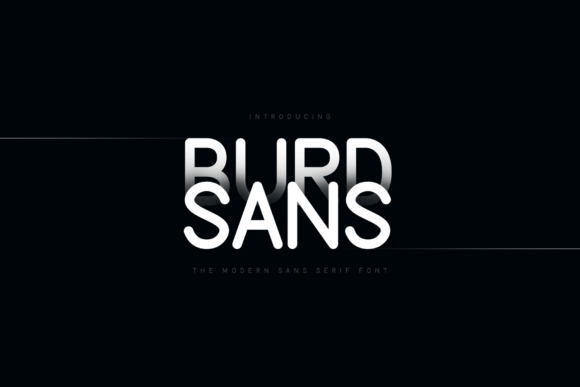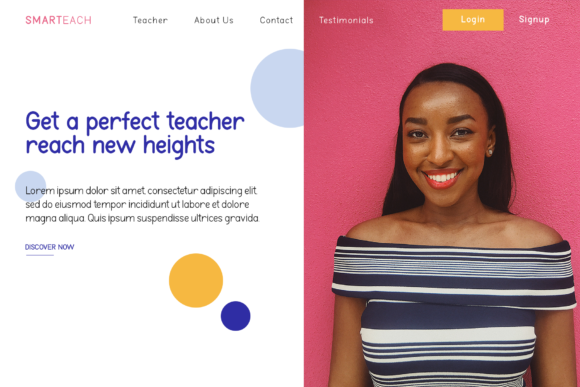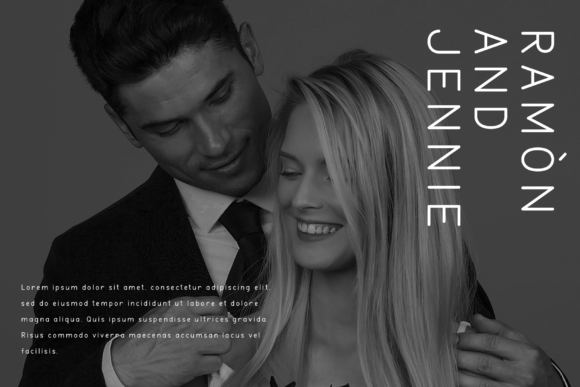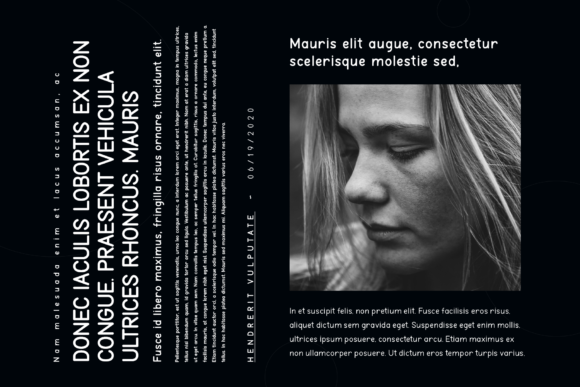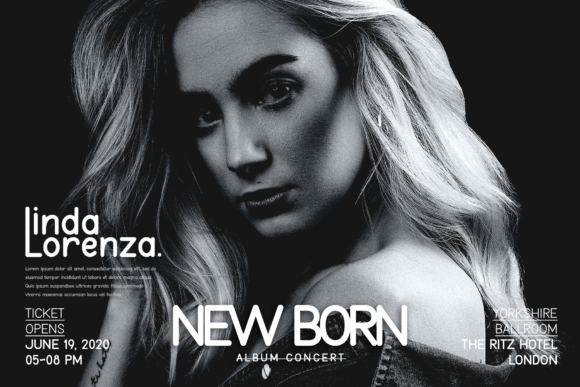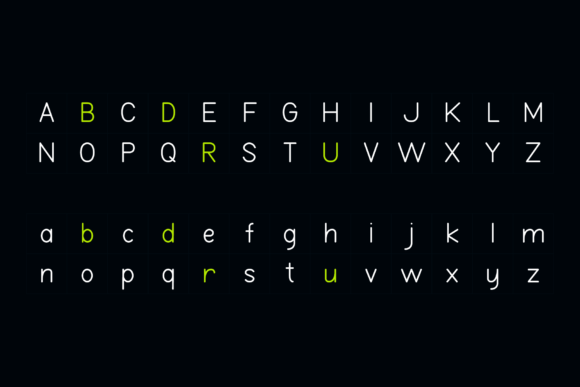
Have you ever stared at a blank page, trying to find the perfect font to bring your design to life? We’ve all been there. The struggle is real, but the solution is simpler than you think. Sometimes, all it takes is a clean and modern sans serif font to elevate your design game.
Enter the Burd Sans Font, a versatile and stylish typeface that’s perfect for a wide range of designs. Whether you’re working on a branding project, a web design, or a social media campaign, Burd Sans Font has got you covered. Its neat style and simplicity make it a valuable asset for designers who want to create visually appealing and professional-looking designs.
Burd Sans Font Key Features
- Size and Resolution: The font comes in 6 weights, ranging from Light to Black, with each weight available in 6 different optical sizes (9, 12, 15, 18, 24, and 36 points), ensuring readability at various resolutions.
- Unique Characteristics: Burd Sans features a clean, modern design with a high x-height, making it suitable for body text and digital interfaces. Its geometric shapes and subtle rounded edges give it a friendly, approachable feel.
- Kerning and Ligatures: Burd Sans includes advanced kerning and ligature pairs to ensure smooth, professional-looking text, even in complex layouts.
Burd Sans Font Review
I’ve had the chance to work with the Burd Sans font, and I must say it’s a solid choice for digital design projects. Here are some of the things I like about it: ✨
- Neutral Style – Burd Sans has a clean, neutral style that makes it easy to pair with other fonts without overpowering the content.
- High Legibility – The font is highly legible, even at small sizes, making it perfect for digital displays.
- Large Character Set – The font comes with a large character set, including a wide range of languages and special characters.
- Not Ideal for Headlines – Burd Sans is a bit too conservative for bold headlines or titles, as it lacks a strong personality.
- May Not Be Suitable for Emotional Content – The font’s neutral style can make it difficult to convey emotional or creative content.
Overall, I think Burd Sans is a reliable choice for digital design projects, especially for content-heavy applications like articles or blog posts. While it may not be the best fit for every project, it’s a solid option to consider.
Tips for Getting the Most Out of Burd Sans Font
Here are some tips for getting the most out of Burd Sans Font:
- Use Burd Sans Font for body text to create a clean and modern look.
- Pair Burd Sans Font with other sans-serif fonts for a professional look.
Burd Sans Font is commonly used for:
- Body text in brochures and flyers.
- Headings and titles in presentations and reports.
- Labels and captions in infographics and posters.